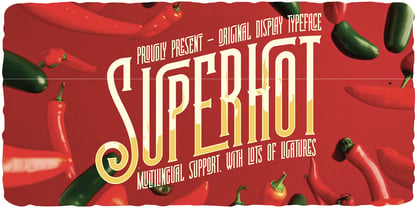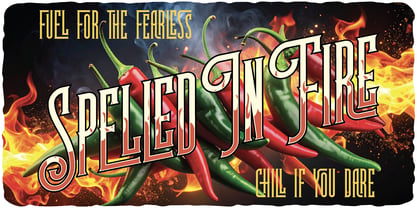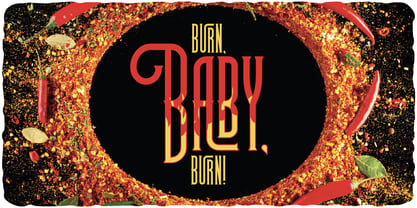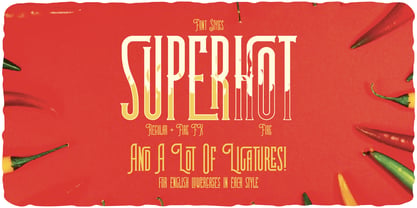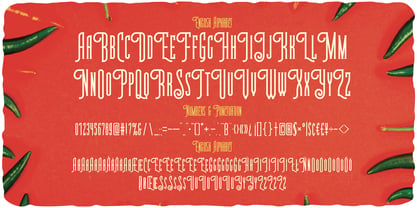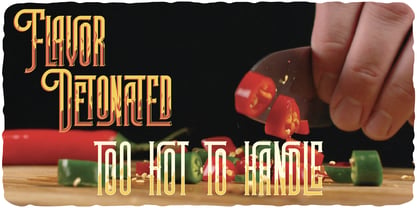
Superhot
by Vozzy
The Superhot Font Family was designed by Oleg Voznyy and published by Vozzy. Superhot contains 3 styles and family package options. More about this family
Introducing the striking font "Superhot," designed specifically for headlines, accent inscriptions, and capturing attention. This unique typeface features an extensive range of characters, including punctuation marks and multilingual options, ensuring versatility across various languages. Additionally, it boasts a significant number of standard ligatures, enhancing the fluidity of your text (please ensure your software supports this OpenType feature). "Superhot" is perfect for elevating your branding, web design, and editorial projects, making it an essential addition to your creative toolkit!